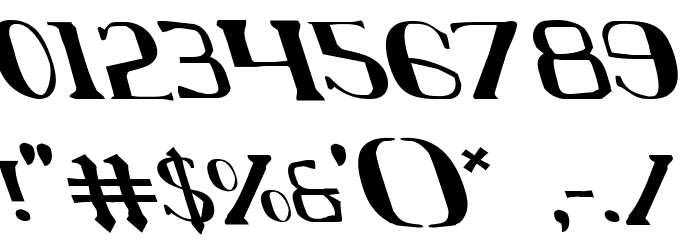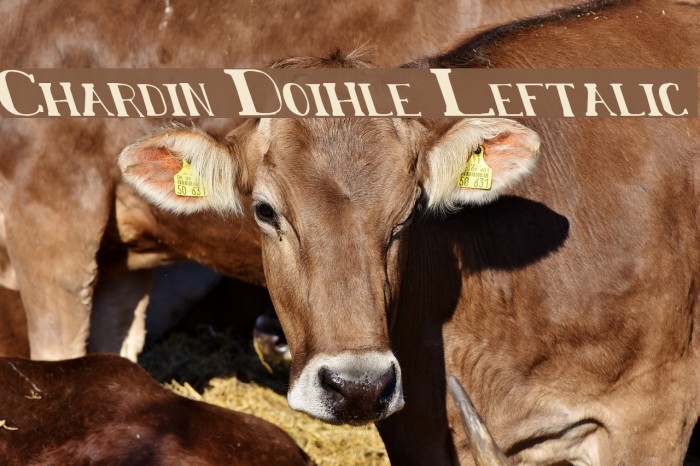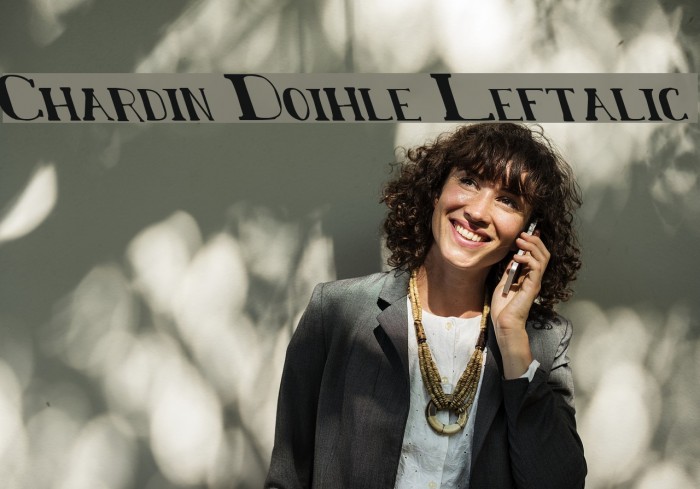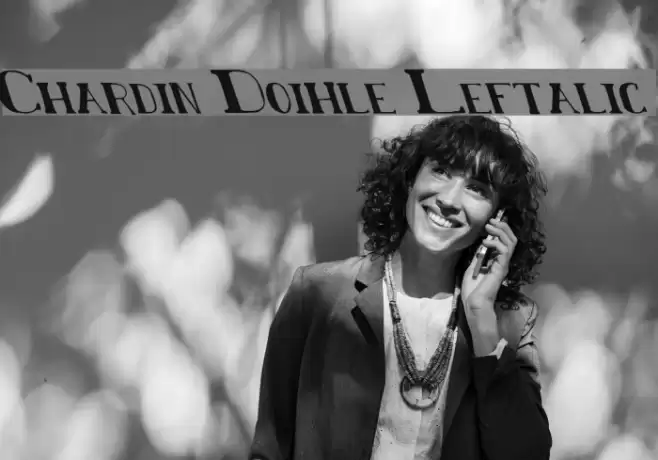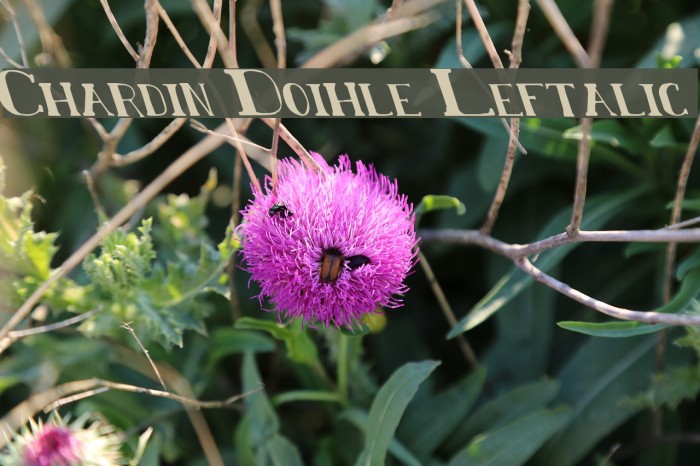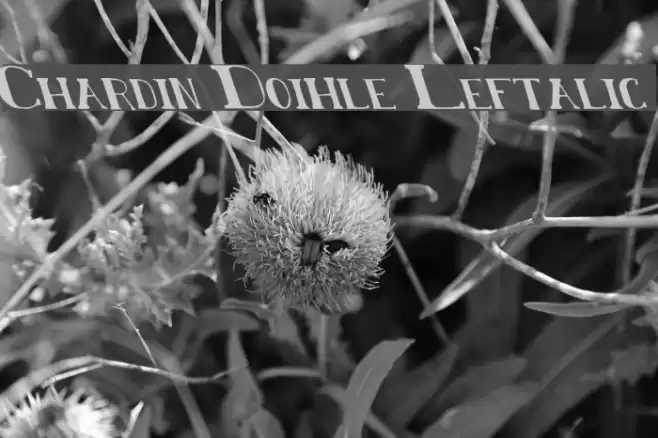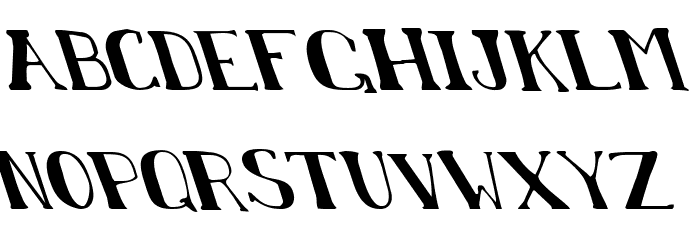
Chardin Doihle Leftalic Font
Chardin Doihle Leftalic Description
This font features a bold and dynamic style with a leftward slant, giving it a unique and eye-catching appearance. The characters are designed with a high contrast between thick and thin strokes, creating a dramatic effect. The uppercase letters are particularly striking, with sharp angles and distinctive serifs that add to the font's boldness. The lowercase letters maintain the same boldness and contrast, ensuring consistency throughout the typeface. Numbers and special characters are also included, each designed to match the overall aesthetic of the font. This typeface is perfect for making a statement and drawing attention.
| Proposed Projects | Ideal for branding, poster design, and headlines where a strong visual impact is needed. |